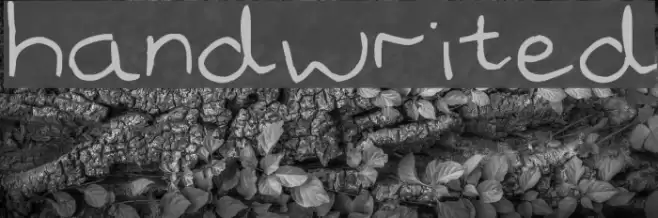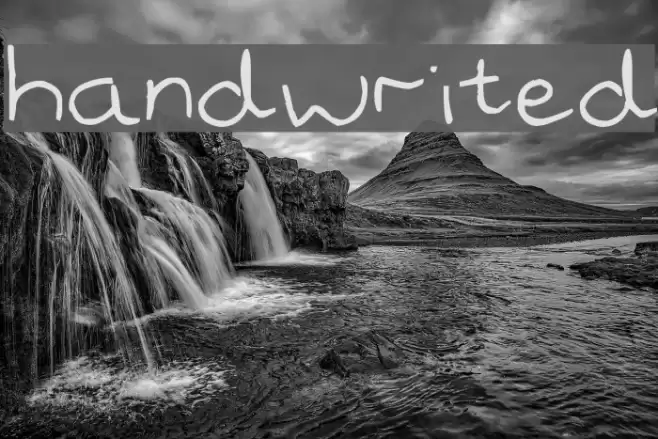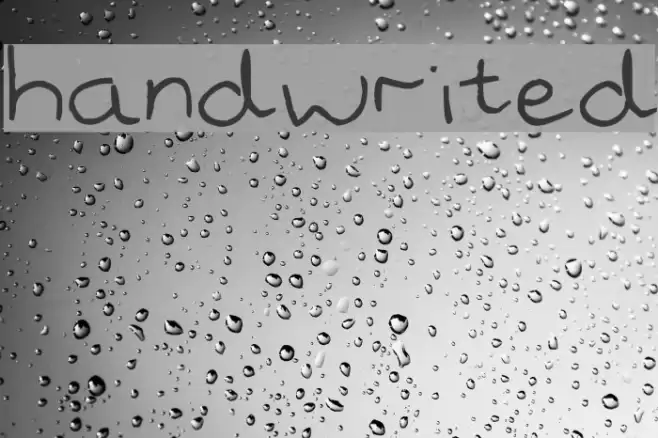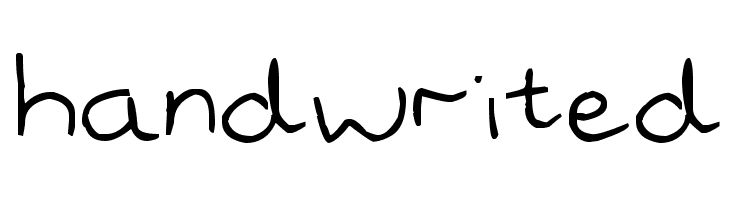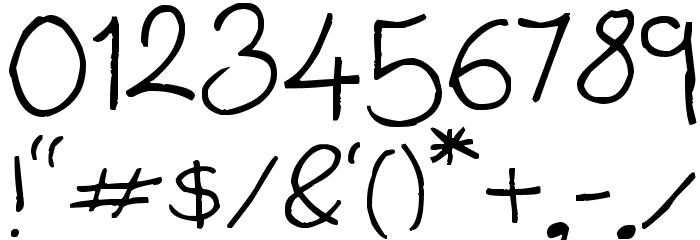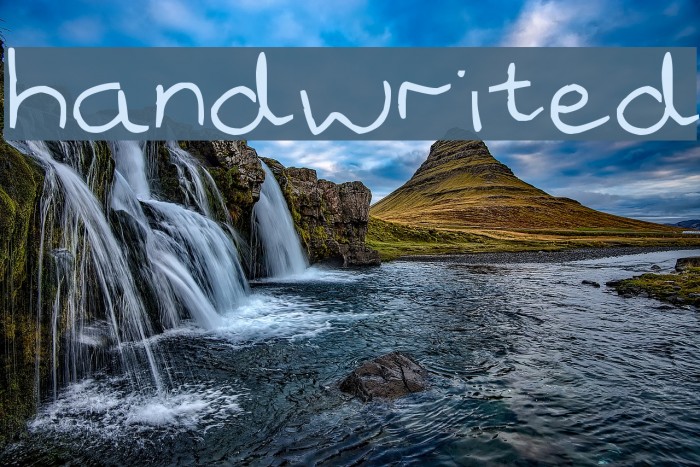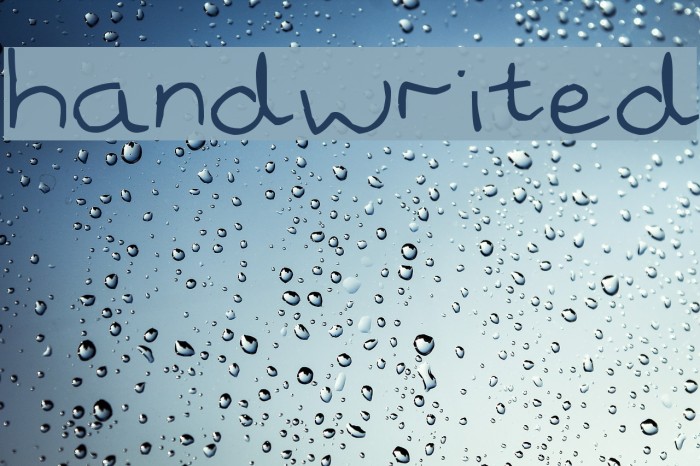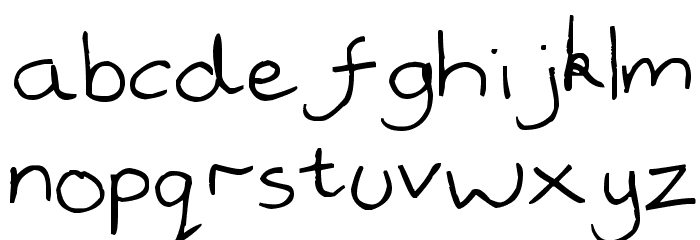
handwrited Font
handwrited Description
This font exudes a casual and approachable handwritten style, characterized by its irregular strokes and playful curves. The letters have a natural flow, mimicking the spontaneity of actual handwriting. The uppercase letters are slightly larger and more pronounced, while the lowercase letters maintain a consistent rhythm. Numbers and special characters follow the same informal aesthetic, making the font versatile for various creative projects. The overall appearance is friendly and inviting, perfect for adding a personal touch to any design.
A casual, handwritten font with playful curves and irregular strokes from Uncategorized fonts.
- Proposed Projects: Ideal for greeting cards, personal notes, informal invitations, and creative branding projects.
- Overall Style: Casual
- Use Case: Logos, Headlines, Informal Text